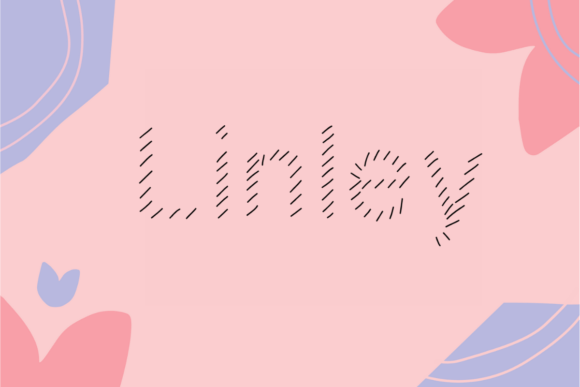
Step into a world of enchanting designs with Linley - the whimsical handwritten font that sparks joy and uniqueness into your creative projects. Picture a cake adorned with playful frosting and sprinkles, every letter of Linley Font is crafted with a similar flair, exuding an aura of delight that captivates the heart.
Let your imagination soar with Linley Font and bring your projects to life with a touch of lightheartedness and fun. Perfect for creating posters that burst with personality, this font will transform your words into captivating works of art. Imagine your posters becoming conversation starters, spreading happiness, and leaving a lasting impression on all who behold them.
With Linley Font, you're not just downloading a font, you're inviting joy and inspiration into your creative space. Its cute characters, brimming with personality, will bring a smile to your face and ignite your imagination. Say goodbye to ordinary fonts and embrace the extraordinary with Linley Font.
Unleash your creativity and step into a realm of captivating designs with Linley Font. Let your imagination flourish and witness the magic unfold as your projects take on a life of their own. It's not just a font; it's an experience that will leave you feeling inspired and joyful.